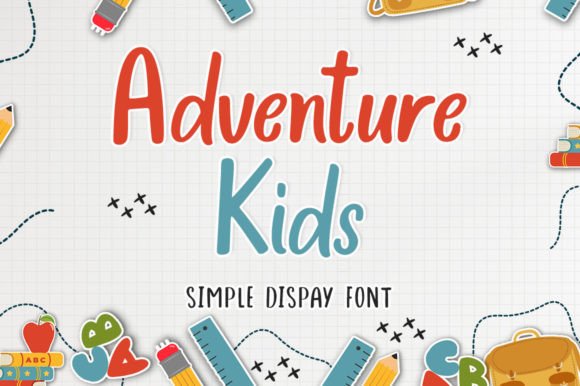
The Ultimate Guide to Adventure Kids Font: Adding a Touch of Whimsy to Your Designs
I’ll never forget the time I was working on a project for a children’s birthday party, and I just couldn’t find the perfect font to match the playful vibe of the design. The client wanted something fun, friendly, and adventurous, but everything I tried seemed either too boring or too over-the-top. That’s when I stumbled upon the Adventure Kids font, and it instantly became the perfect fit. In this article, I’ll share my love for this adorable handwritten display font and provide you with a comprehensive guide on how to make the most of it in your creative projects.
An Honest Review of Adventure Kids Font
So, what makes Adventure Kids font so special? Let’s dive into the good stuff and a few quirks to keep in mind.
• ✨ Cute and Friendly Design: Adventure Kids font is, without a doubt, one of the cutest and friendliest fonts out there. Its handwritten style gives it a personal touch that’s perfect for projects that need a bit of warmth and character.
• ✅ Highly Versatile: Whether you’re working on a children’s book, a party invitation, or a brand identity, this font adapts beautifully to different contexts and sizes.
• 💡 Evokes a Sense of Adventure: The font’s playful and adventurous vibe makes it ideal for projects that aim to inspire curiosity and excitement.
While Adventure Kids font is fantastic for many uses, there are a few things to keep in mind:
• ⚠️ Legibility at Small Sizes: Like many handwritten fonts, Adventure Kids can become a bit tricky to read at very small sizes. It’s best used at larger sizes where its charm can shine.
• 🤔 Formal Projects Might Not Be the Best Fit: Given its playful nature, this font might not be the best choice for very formal or professional projects. It’s all about finding the right context.
Exploring OpenType Features, Glyphs, and Stylistic Alternates
One of the joys of using high-quality fonts like Adventure Kids is accessing their advanced typographic features. If you’re using programs like Adobe Illustrator or Photoshop, you can explore:
• OpenType Features: These allow you to access stylistic sets, swashes, and even ligatures that can add an extra layer of customization to your text.
• Glyphs: Many fonts come with additional glyphs – think icons, borders, or other ornaments that can enhance your design.
• Stylistic Alternates: These are alternative versions of letters or numbers that can help you vary the look of your text.
The Backstory Behind Adventure Kids Font
While the actual origins of Adventure Kids font might be shrouded in mystery, it’s easy to imagine a designer with a passion for travel and storytelling creating it. Perhaps they wanted to bottle up the essence of childhood adventures into a typeface that’s both fun and legible. Whatever the inspiration, Adventure Kids font certainly captures the imagination.
Adventure Kids font is more than just a typeface – it’s a design element that can bring a sense of playfulness and adventure to your projects. With its friendly appearance and versatile use cases, it’s an excellent addition to any designer’s toolkit. Whether you’re crafting a children’s book, designing party invitations, or brainstorming brand identities, Adventure Kids font can help you achieve that perfect blend of fun and professionalism.